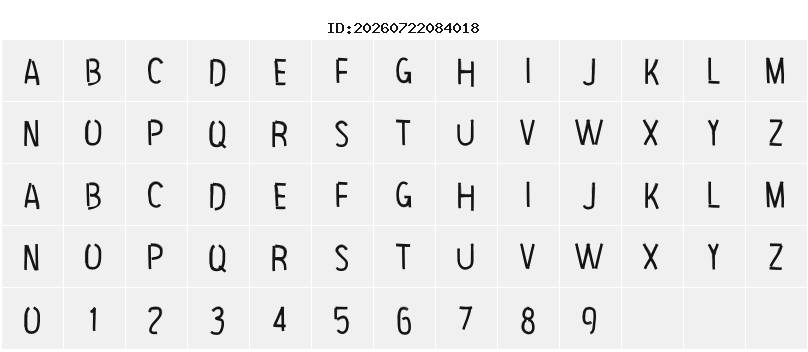
Hip Priest Preview
• Font Name: Hip Priest
• Full Font Name: Hip Priest
About Hip Priest.otf
Hip Priest.otf is a modern, elegant sans-serif font designed for ultimate readability and visual harmony. Perfect for branding, headlines, web design, and print materials.